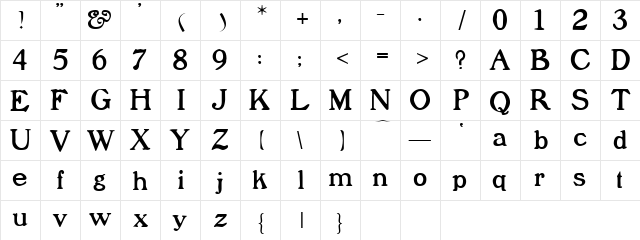
Prophet Regular
Design Context for Prophet Typeface
Prophet takes a measured approach to typography — its balanced proportions and neutral character make it a reliable workhorse for both digital and print work.
Pro Tip: Use Prophet in both headline and body roles to test its range before committing to a single application.